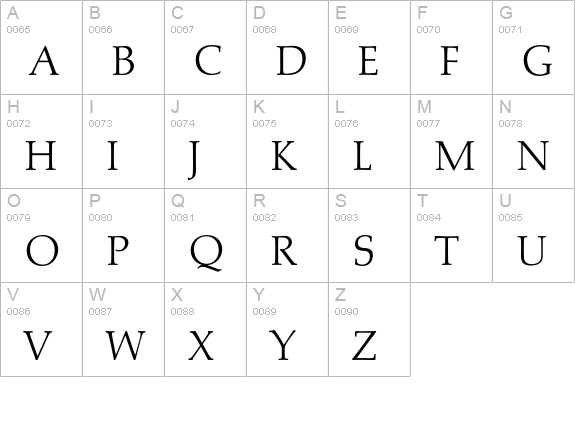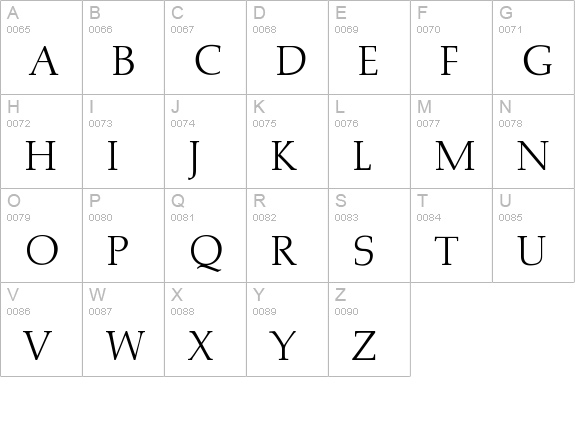
Marath-Light is a refined, elegant variant in the Marath typeface family \xE2\x80\x94 well suited to elegant body text, refined sub-headings, and luxury branding.
Marath-Light font is a beautifully designed typeface that exudes elegance and sophistication. With its delicate curves and fine lines, this font is perfect for adding a touch of class to any project. Whether you're designing a logo, creating a wedding invitation, or crafting a magazine layout, Marath-Light font will elevate your design to new heights. What sets Marath-Light font apart is that it is not only aesthetically pleasing, but it is also free to download. That's right, this stunning font can be yours without spending a dime. Thanks to FontsMarket.com, you can access Marath-Light font with ease and incorporate it into your creative endeavors effortlessly. The versatility of Marath-Light font is another reason why it is a must-have for any designer. With its clean and legible characters, this font is suitable for both print and digital applications. Whether you're working on a poster, a website, or a branding project, Marath-Light font will deliver a professional and polished result. The attention to detail in Marath-Light font is truly exceptional. Each letter is meticulously crafted, ensuring that every word you create is visually pleasing. The thin strokes and generous spacing make this font highly readable, allowing your audience to effortlessly absorb your message. So why wait? Download Marath-Light font today and see for yourself the transformative power it holds. With its timeless beauty and easy accessibility, this font is a valuable addition to any designer's toolkit. Head over to FontsMarket.com now and experience the freedom of Marath-Light font.